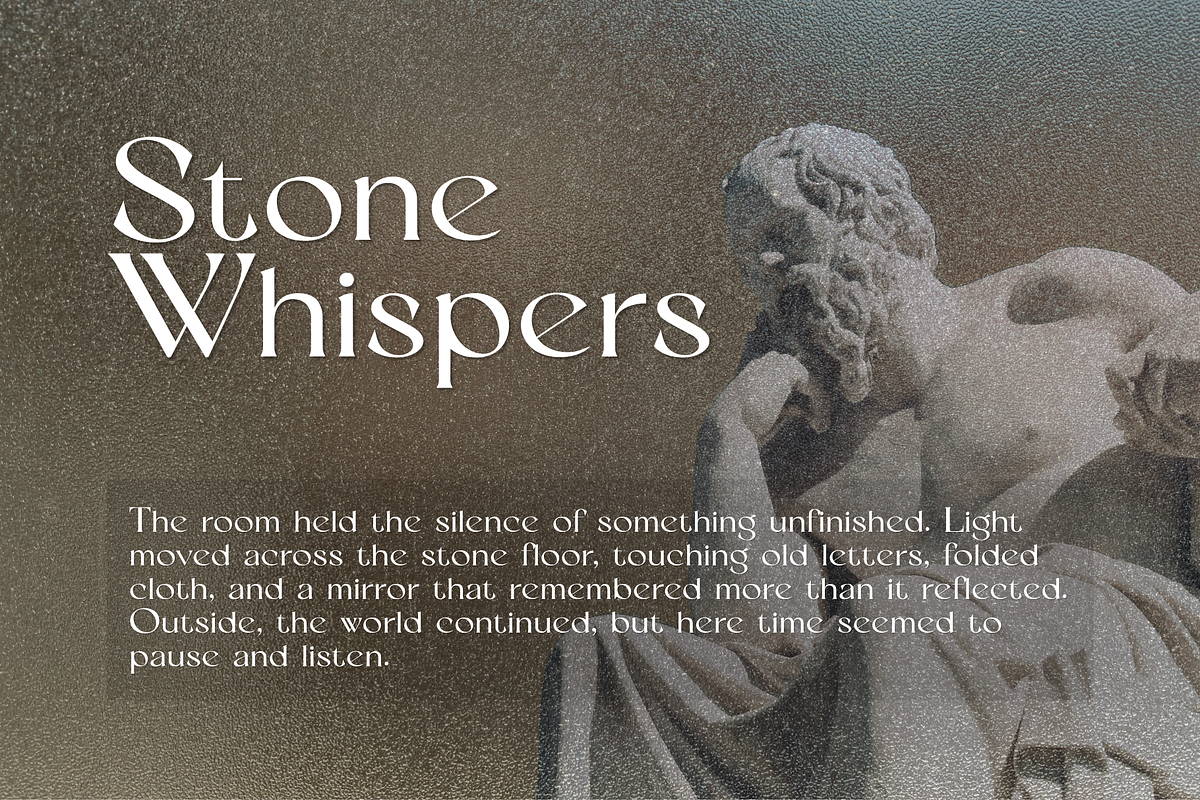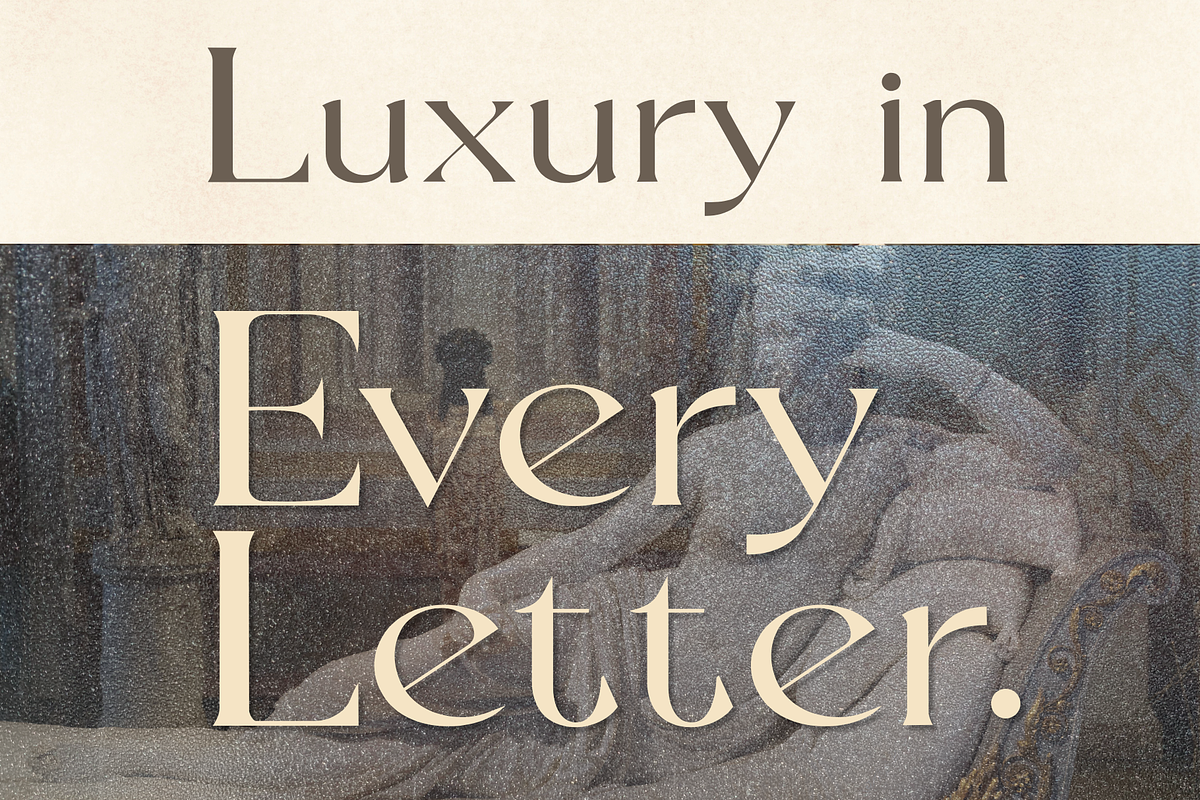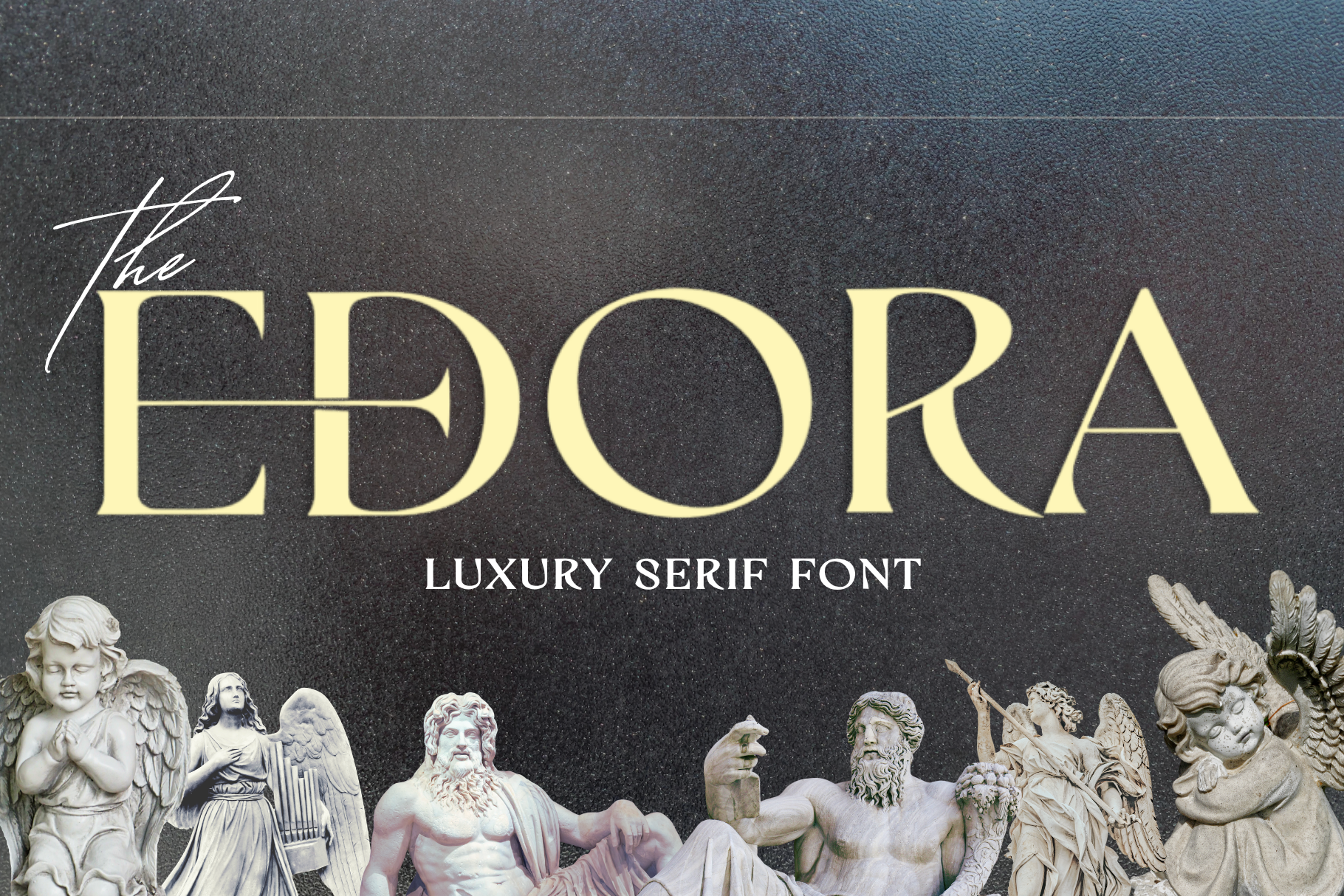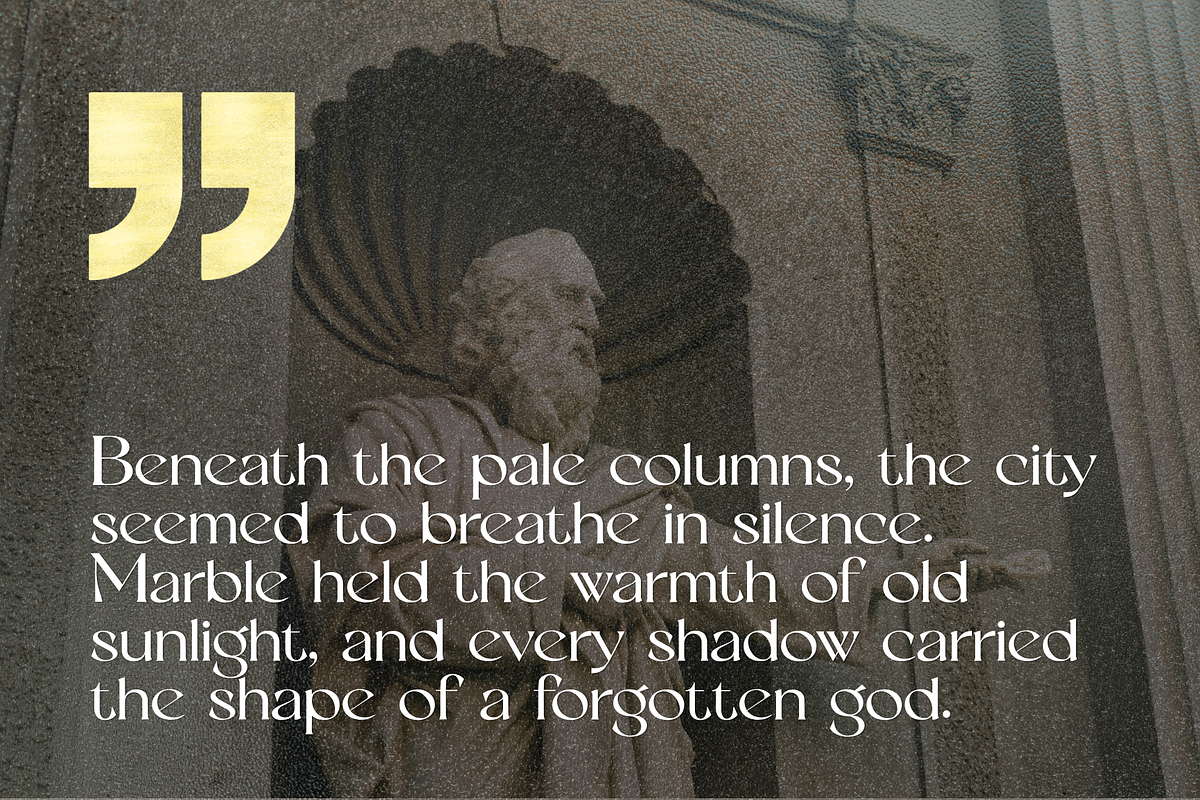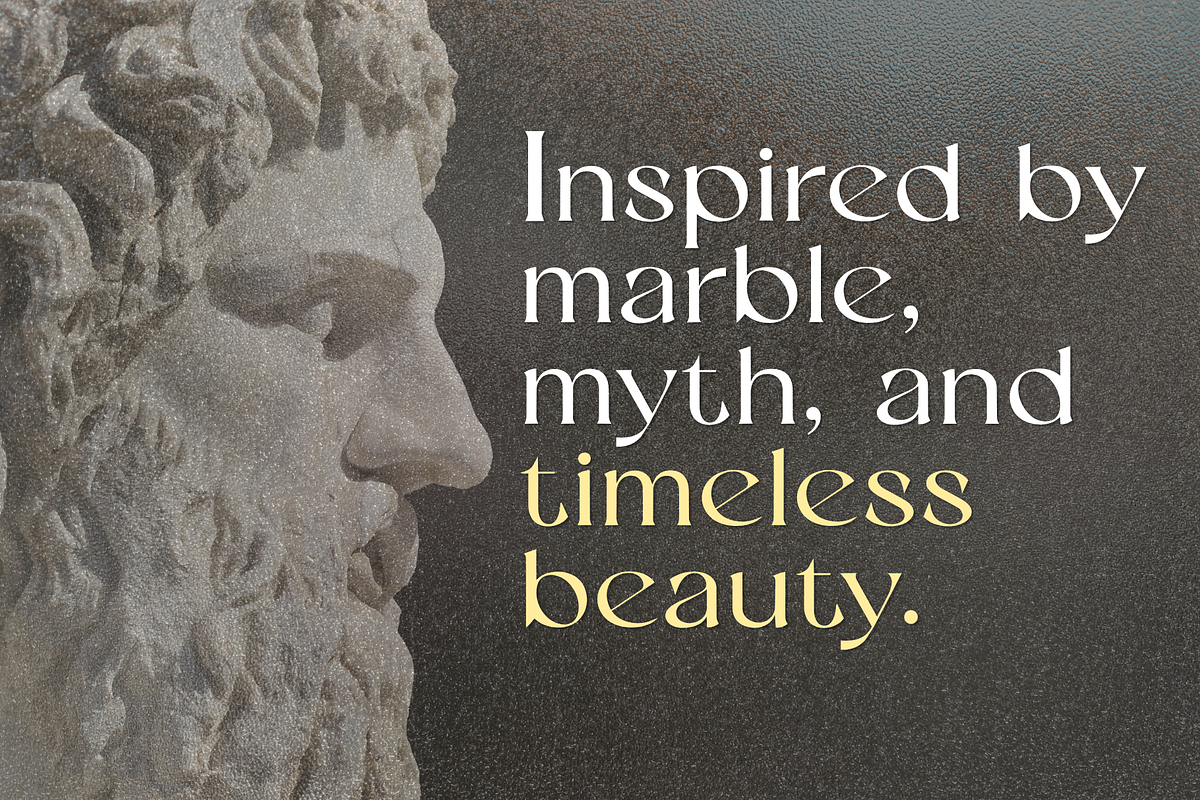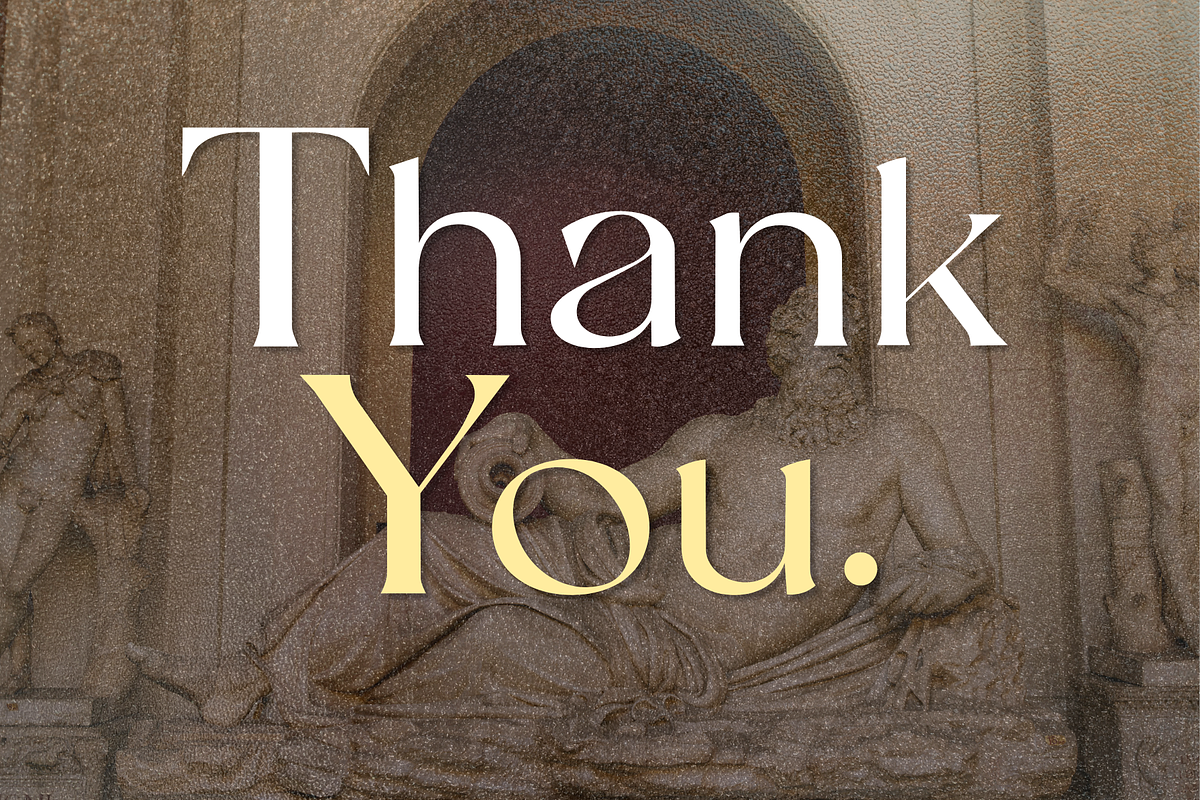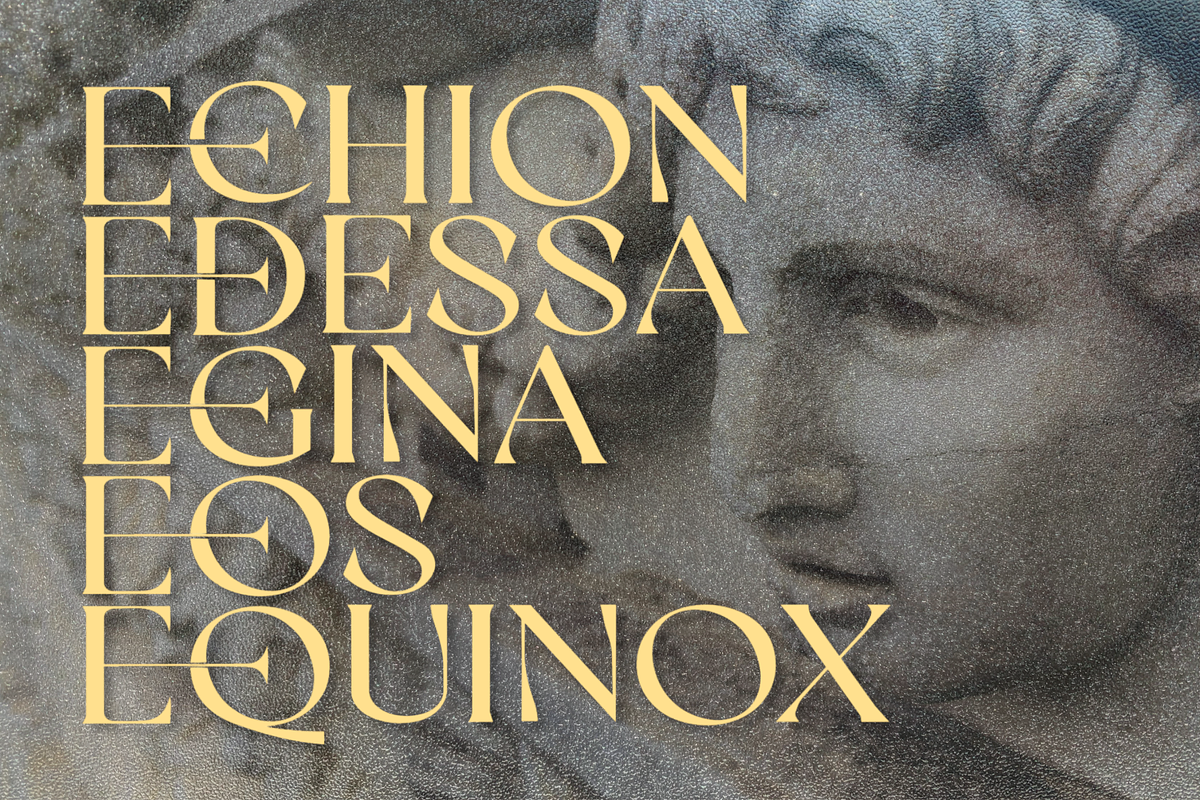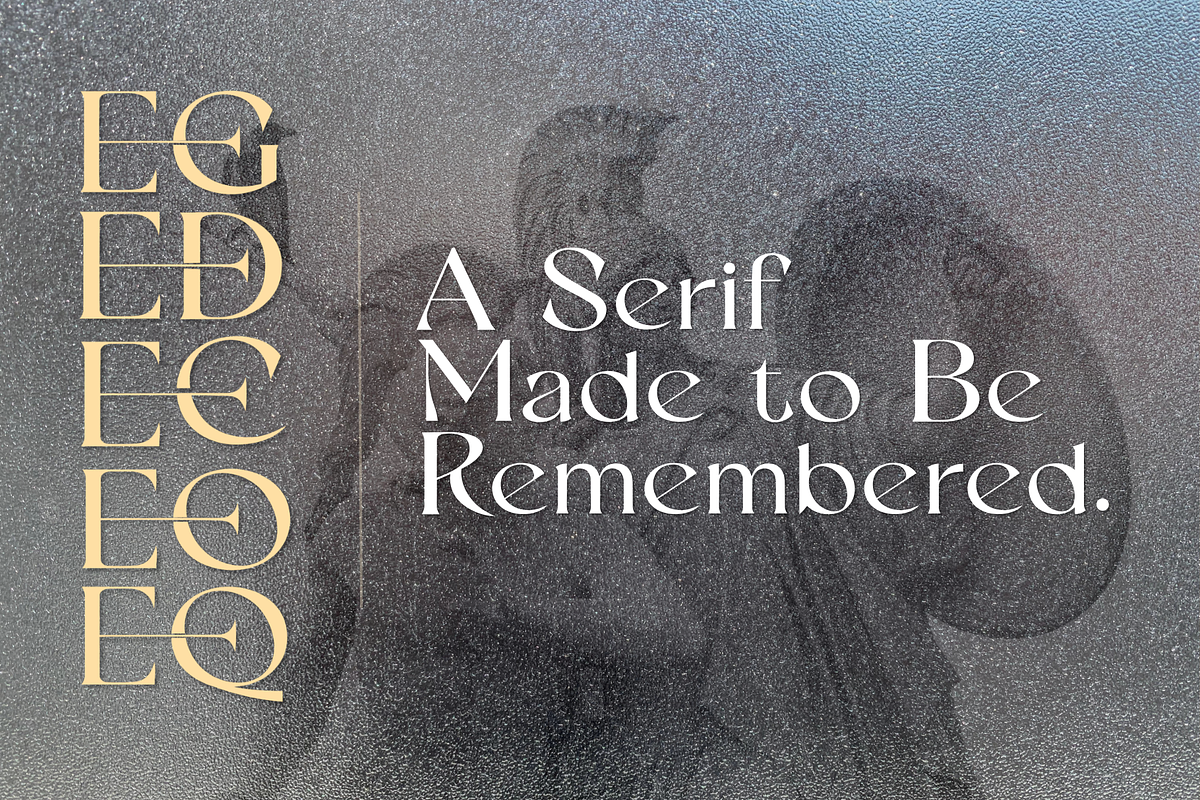
Edora Luxury Serif Font
Edora is a sophisticated, high-contrast serif typeface designed to bring an elegant, premium, and memorable touch to your projects. With its graceful curves, sharp serif accents, and eye-catching thin-to-thick transitions, Edora captures a timeless editorial charm. It’s a perfect fit for luxury branding, beauty packaging, perfume labels, logos, invitations, editorial layouts, inspirational quotes, and social media graphics.
I created Edora with a soft luxury look in mind, inspired by timeless typography, marble textures, classical beauty, and elegant brand design. It is best used as a display font for short words, brand names, large headings, product labels, and visual identities.
Edora also includes OpenType-style contextual alternates for selected letter combinations, giving certain words a more custom connected look in supported design software. For best results, use it in apps that support OpenType features.
For a cleaner luxury feel, try adding a little letter spacing, especially when using uppercase text.